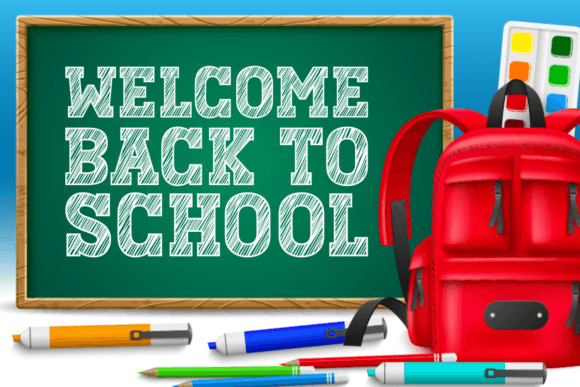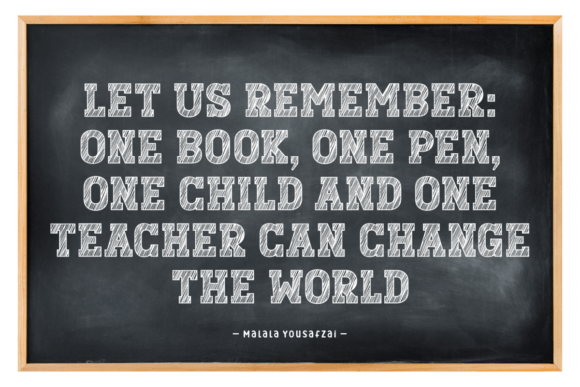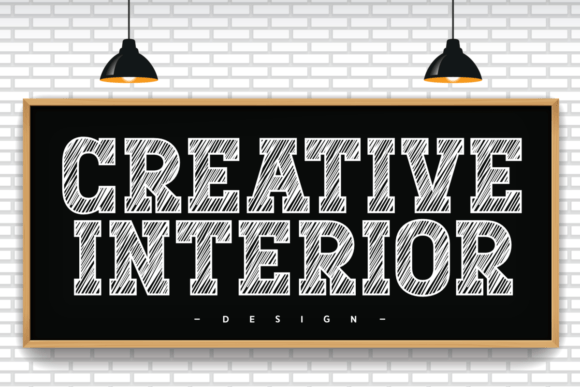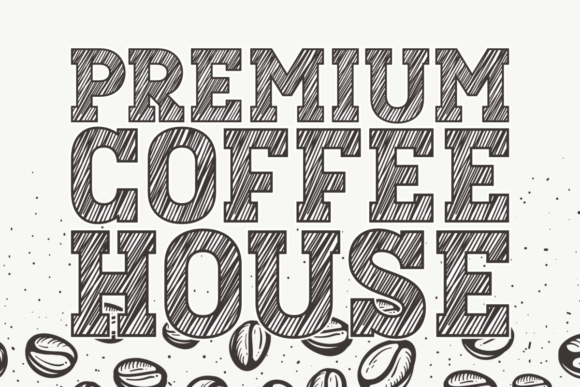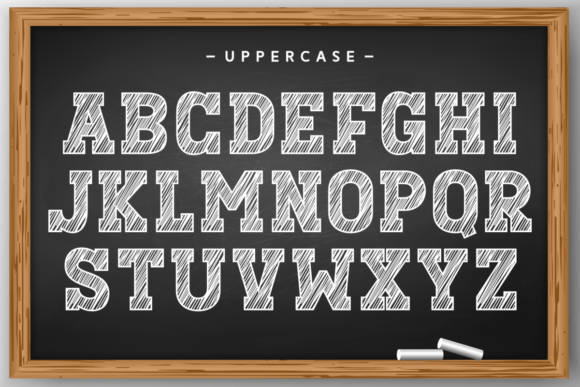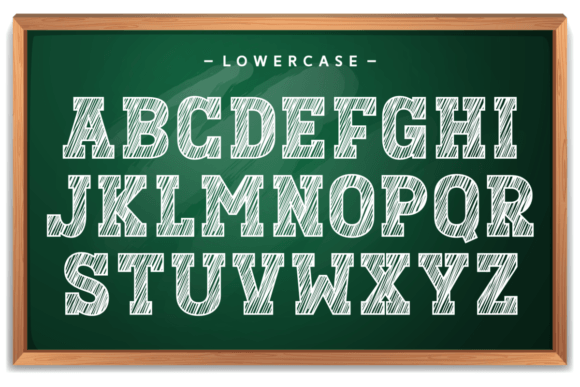
Introduction to Sketch Chalk Font
Have you ever stared at a blank canvas, waiting for the perfect spark to ignite your creativity? For designers, this moment is all too familiar. The search for the perfect design resource can be a daunting task, but sometimes, all it takes is a single discovery to set the wheels in motion. For those seeking a unique and eye-catching typeface, look no further than the Sketch Chalk Font.
This charming slab serif font is a game-changer for creative projects, offering a high-quality, free download that’s perfect for designers seeking a distinctive look. With its chalk-like striped characters, the Sketch Chalk Font is a design resource that’s sure to stand out. Whether you’re crafting a school-themed project or creating a logo for a brand, this versatile font is a valuable addition to any designer’s toolkit.
Key Features of Sketch Chalk Font
- High-quality, hand-drawn design perfect for creative projects and design resources.
- Sketch Chalk Font features a transparent background, allowing for seamless layering and customization in your design projects.
- With over 300 characters and 40 characters in uppercase, this font is ideal for a wide range of creative applications, from logos to editorial content.
- This unique, hand-drawn font is perfect for designers looking to add a touch of personality and whimsy to their creative projects.
Honest Review: Sketch Chalk Font
I recently stumbled upon the Sketch Chalk Font, and I must say, it’s been a great addition to my design arsenal. This font is perfect for anyone working on a creative project that requires a playful and whimsical touch. The font is available for free download, which is always a plus!
One of the things that works well about Sketch Chalk Font is its high quality and versatility. It comes in a range of styles and weights, making it easy to customize to suit your design needs. The transparent background feature is also a great touch, allowing for seamless integration into your design project.
However, there are a few limitations to consider. The font may not be suitable for professional or formal projects, as it has a more casual and playful tone. Additionally, some users may find the font’s characteristics to be a bit too bold or overwhelming.
Overall, I’m impressed with the Sketch Chalk Font. It’s a great design resource for anyone working on a creative project that requires a fun and engaging touch. While it may have its limitations, I believe it’s well worth downloading and experimenting with.
Sketch Chalk Font: A High-Quality Design Resource
The Sketch Chalk Font is a free download that offers a unique and creative design resource for your next project. This high-quality font is perfect for adding a personal touch to your work.
Common Use Cases for Sketch Chalk Font
The Sketch Chalk Font is perfect for various creative projects, including:
- Birthday invitations and party decorations.
- Wedding invitations and decorations.
- Branding and marketing materials.
- Education and training materials.